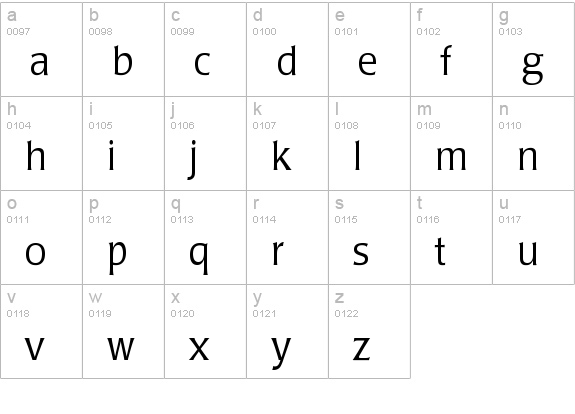
Poppl-Laudatio BQ Light is a refined, elegant variant in the Poppl typeface family \xE2\x80\x94 well suited to elegant body text, refined sub-headings, and luxury branding.
Poppl-Laudatio BQ Light font is a beautifully designed typeface that exudes elegance and sophistication. Its delicate strokes and clean lines make it perfect for a wide range of design projects, from invitations to branding to editorial layouts. The light weight of this font adds a touch of modernity and grace to any text. What makes Poppl-Laudatio BQ Light font even more appealing is that it is available for free download at FontsMarket.com. This means that you can easily access this stunning font without any cost, making it a valuable addition to your font library. Whether you are a designer, a student, or a business owner looking to elevate your branding, Poppl-Laudatio BQ Light font is a fantastic choice that is both high-quality and freely accessible. Download it today and see how it can enhance your projects with its timeless beauty and versatility.